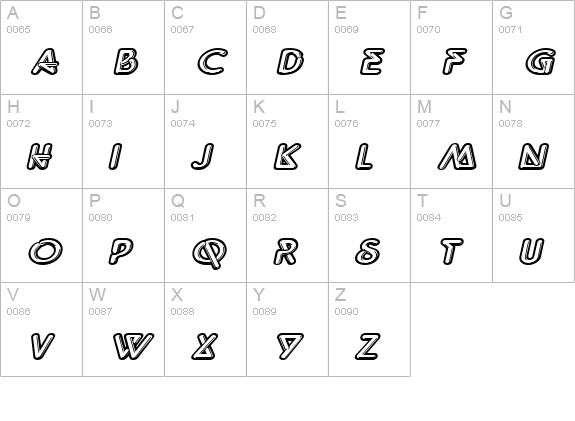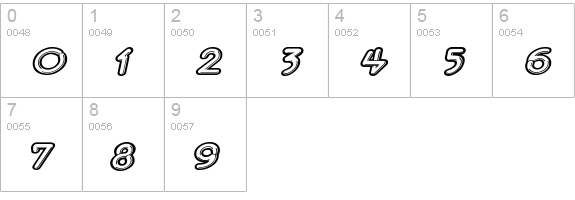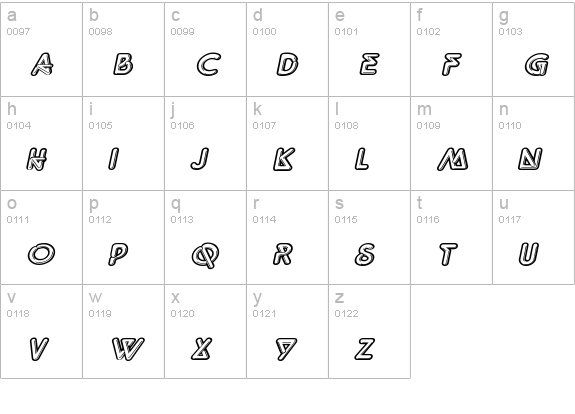
Neonz-Extended Italic Font Details
Neonz-Extended Italic is a distinctive, extended-width, italic variant in the Neonz typeface family \xE2\x80\x94 well suited to design and typography projects.
Neonz-Extended Italic font is a stunning display typeface that exudes modernity and sophistication. Its sleek and futuristic design makes it perfect for branding, titles, and other creative projects that require a touch of elegance. The italicized style adds a dynamic and energetic flair to any text, making it stand out from the crowd. Best of all, Neonz-Extended Italic font is available for free download at FontsMarket.com. This means that you can easily access this beautiful font and use it in your designs without any cost. Don't miss out on the opportunity to enhance your projects with the striking Neonz-Extended Italic font today!